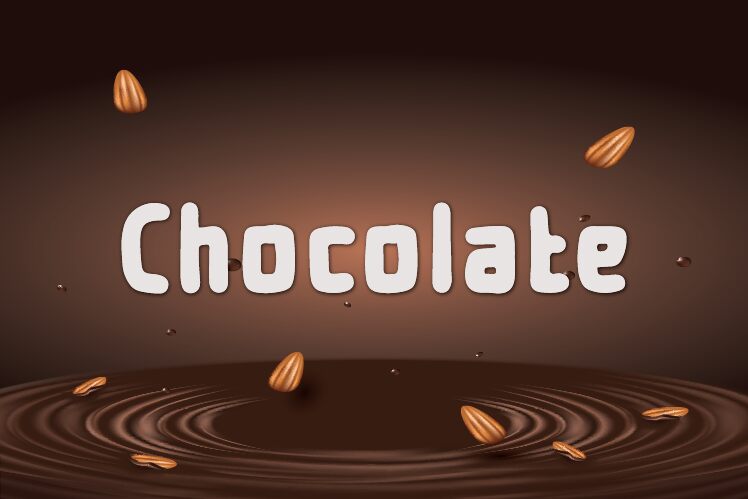
Introducing Chocolate, a bold, narrow and cartoon-style font created by Lady Hanna. Perfect for projects requiring an extra-fancy touch, such as logos, invitations and posters.
Chocolate